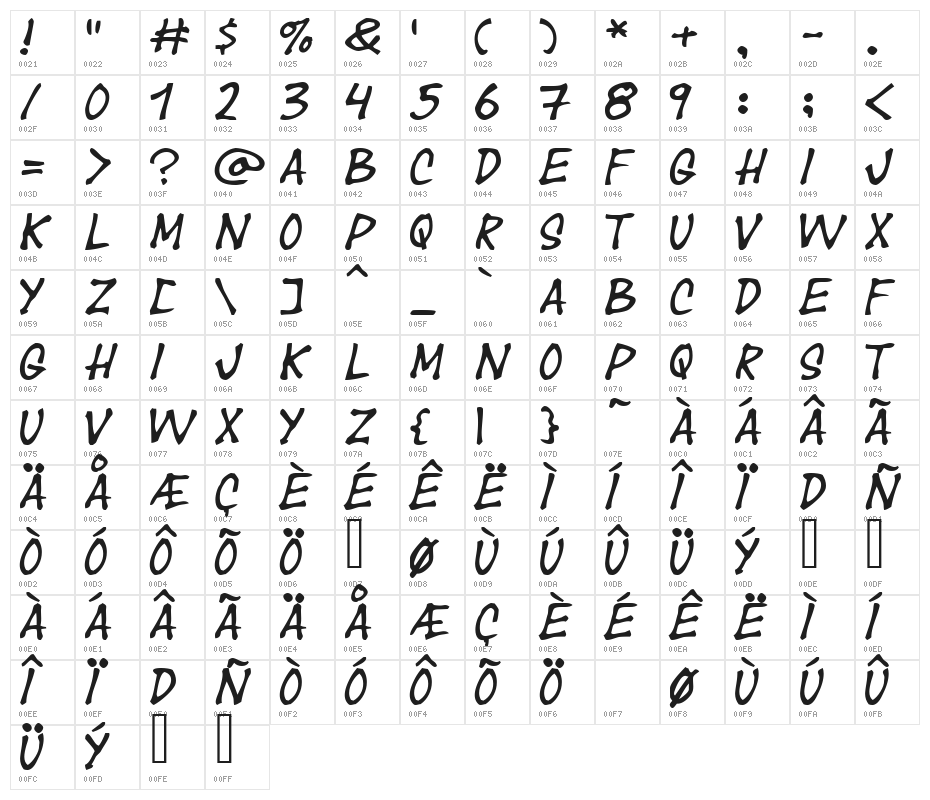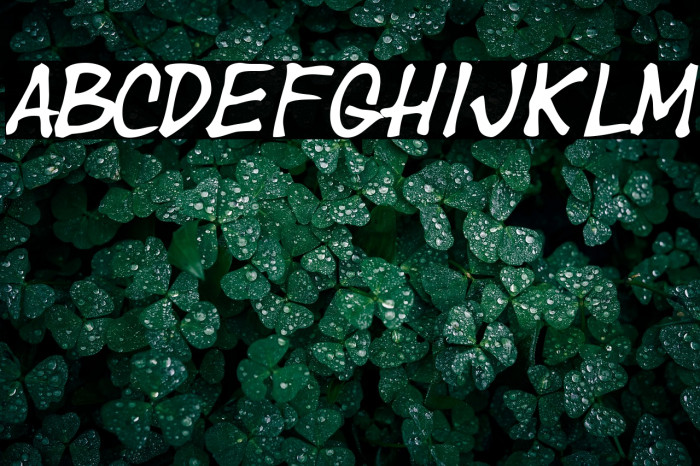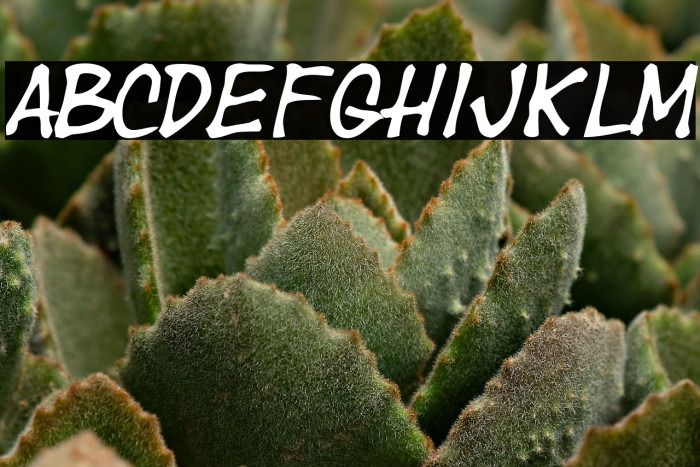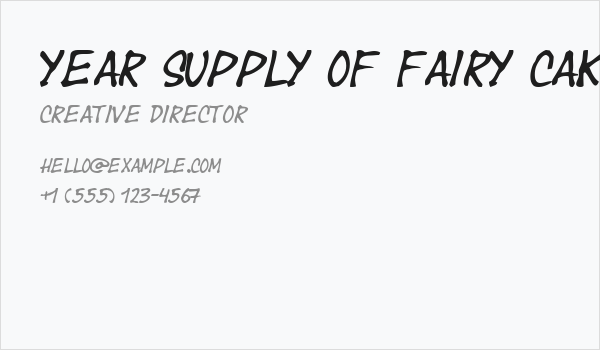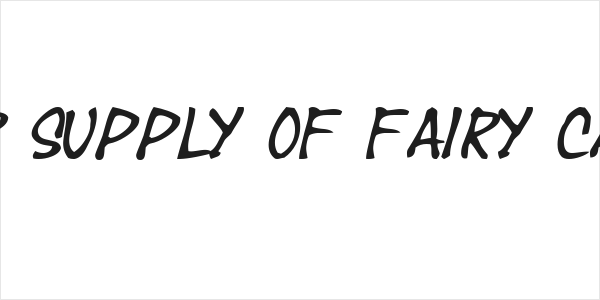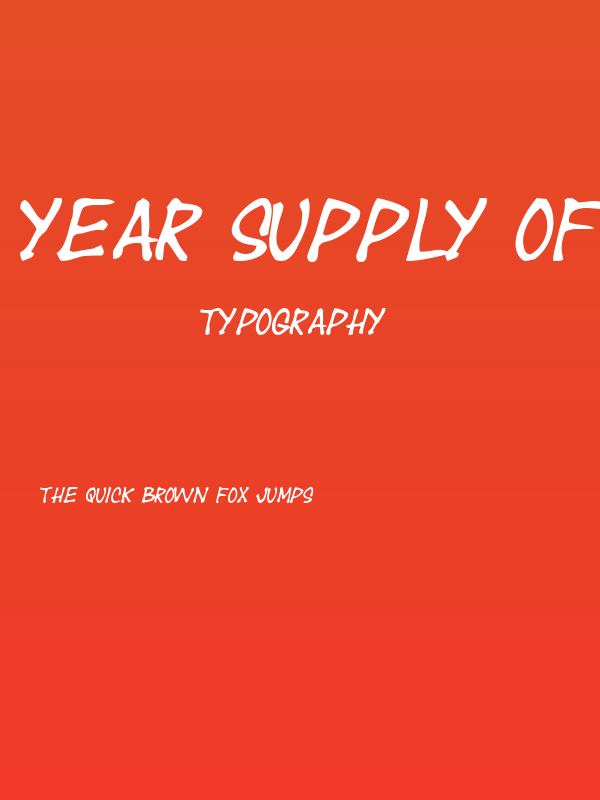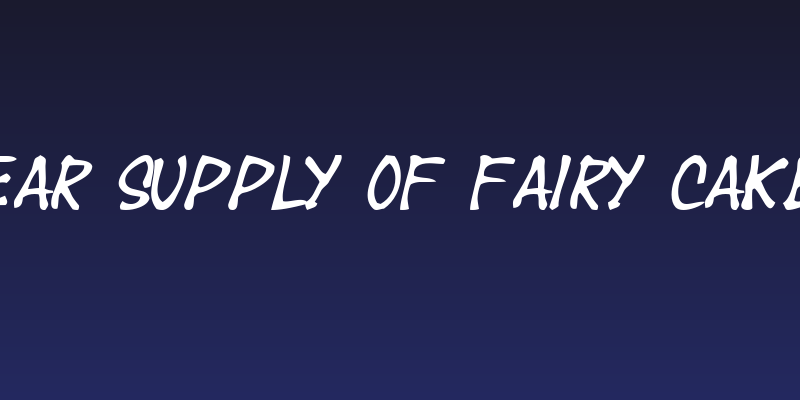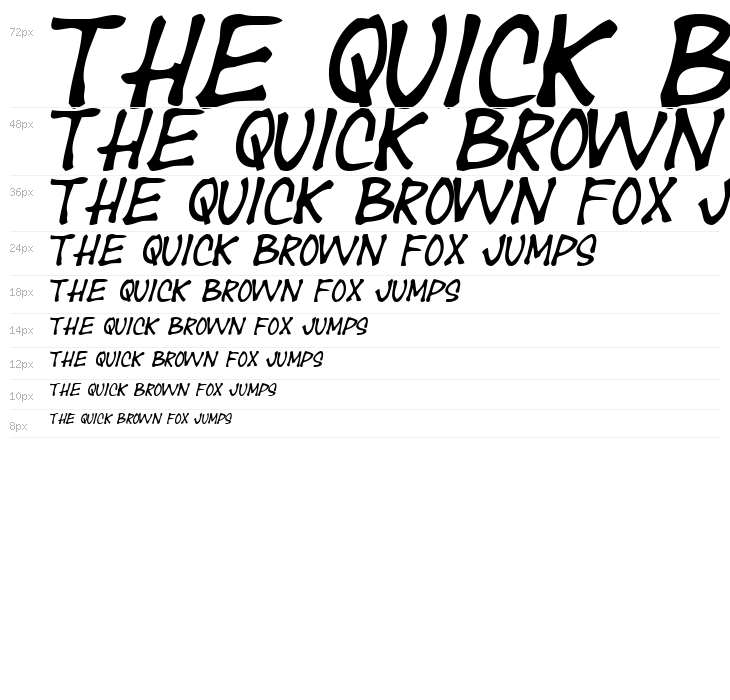
Year supply of fairy cakes Font
Year supply of fairy cakes Description
This font features a bold and dynamic handwritten style, characterized by its energetic and slightly irregular strokes. The letters are crafted with a sense of movement, giving them a lively and informal appearance. The uppercase and lowercase letters maintain a consistent flow, while the numbers and special characters complement the overall style with their playful curves and angles. The font exudes a sense of creativity and spontaneity, making it ideal for projects that require a personal touch.